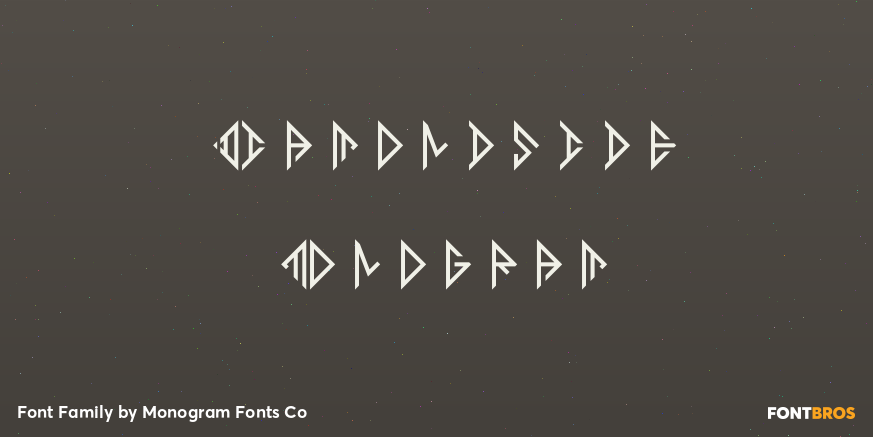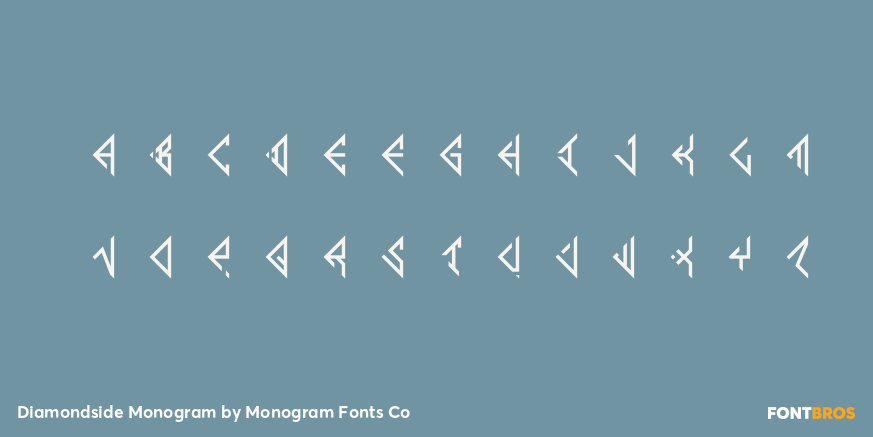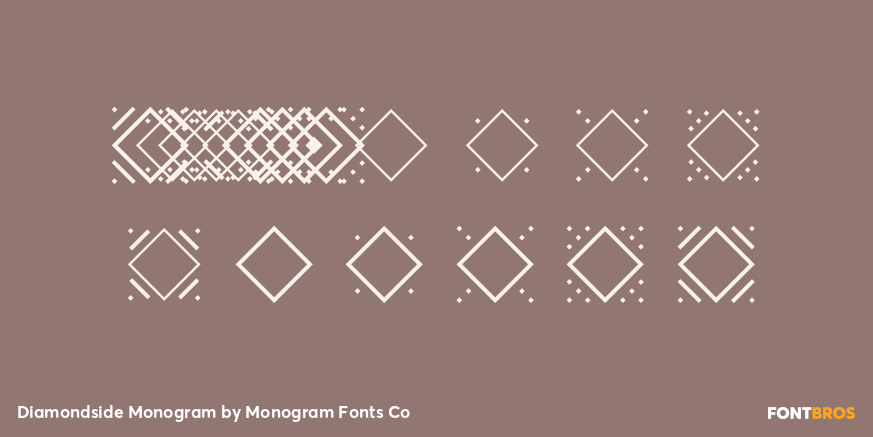
Diamondside Monogram
Diamondside Monogram finds its historical influence in our diamond-shaped Moissanite Monogram, however more squared up in form. This modern interpretation adds layerable chromatic faceting to the style for an updated look.
Diamondside Monogram is capable of creating two letter monograms, either free-floating or surrounded by a selection of different frames. The family adds two more fonts, Diamondside Monogram Back and Diamondside Monogram HiLite. The Back font used alone has a bold appearance, while the Basic version has a lighter appearance, and the HiLite adds a hilight faceting. Three layerable styles with multiple uses, combined for dimensional effects or used independently.